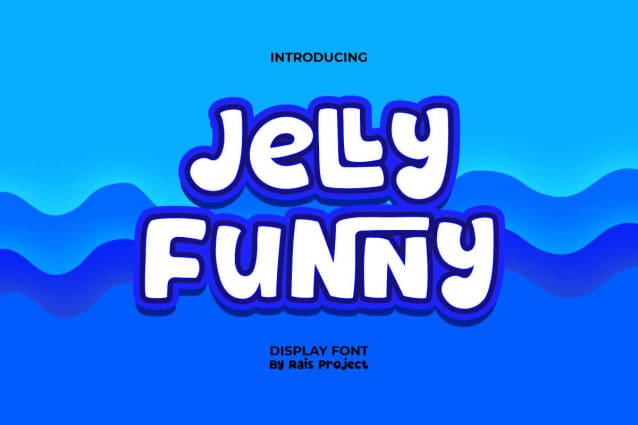
Jelly Funny Font
Jelly Funny Font is a cute and fluffy display font. This font has a looks that can be used on a variety of display types and make it cute and fluffy! Such as brand business card, cover, custom design, logo,cartoon, comic, invitation, label, menu, poster, product packaging, quote, signage, website, and more!
Jelly Funny Font includes a full set of Uppercase and Lowercase Letters, Numerals, and large range of punctuation. This font also contain Ligature characters that will be suitable for various industries, such as accessories, café, cartoon, comic, event organizer, fashion, festival, interior design, kids stuff, photography, printing, publishing, etc.